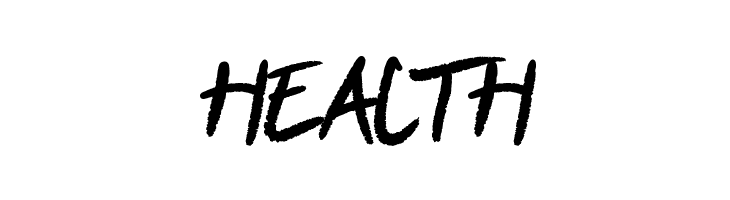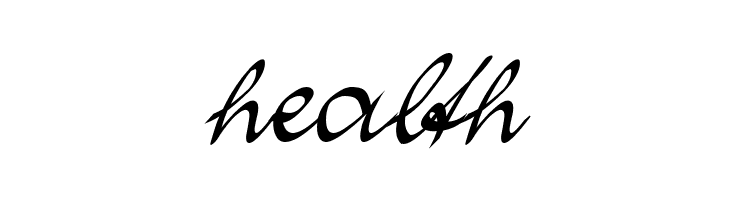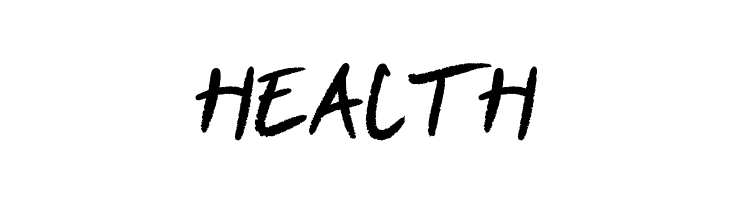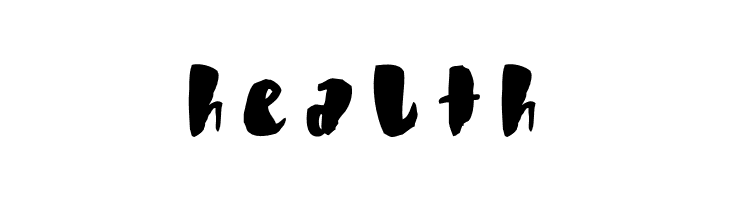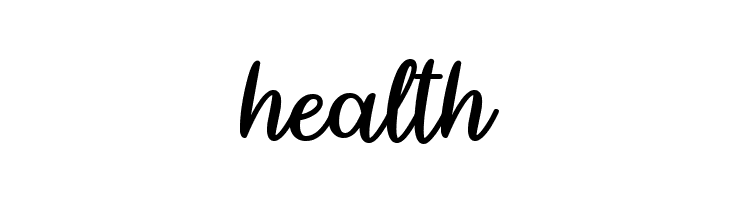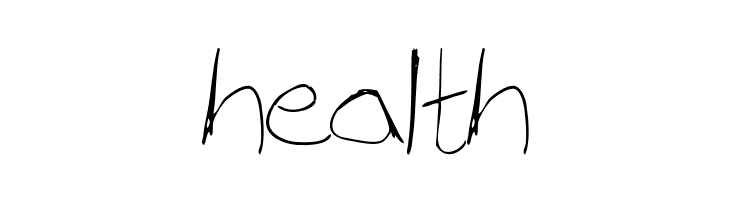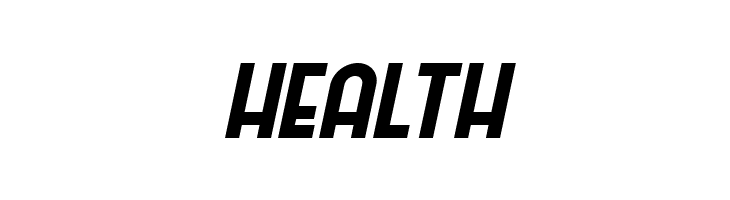
A bold, italic font with a dynamic and energetic style.
A bold, italic font with strong diagonal emphasis and smooth curves.
A playful, hand-drawn font with irregular, brush-like strokes.
A bold, hand-painted font with an artistic and playful style.
A bold, expressive script font with a dynamic, handcrafted feel.
A bold, dynamic handwritten font with brush-like strokes.
A whimsical and elegant script font with decorative swirls.
A dynamic and fluid script font with elegant, flowing cursive letters.
A dynamic and elegant script font with flowing, connected letterforms.
A bold, dynamic script font with connected characters and a strong presence.